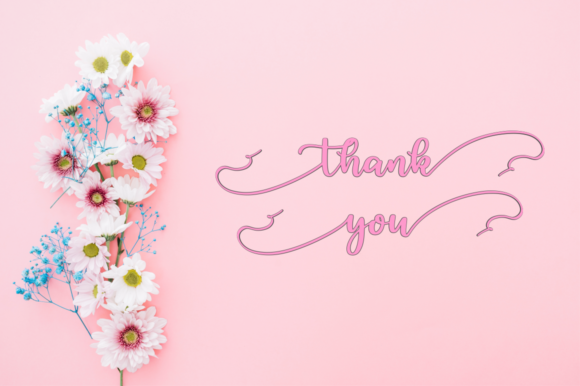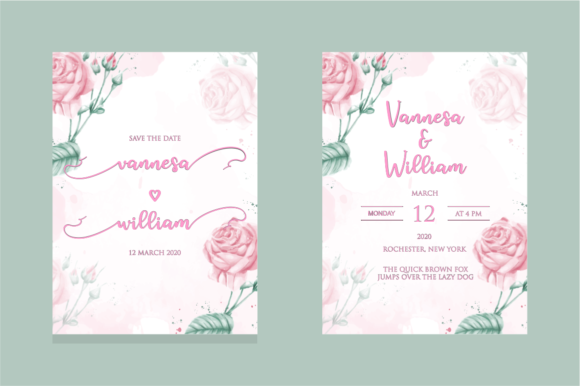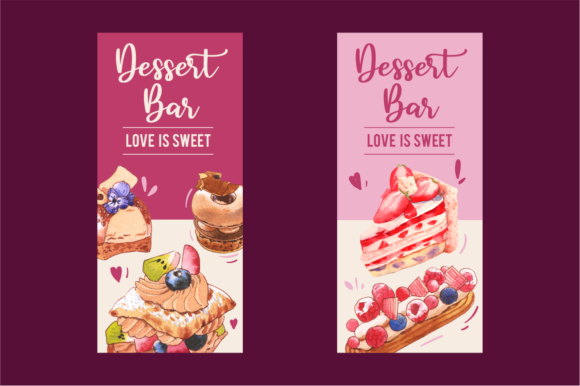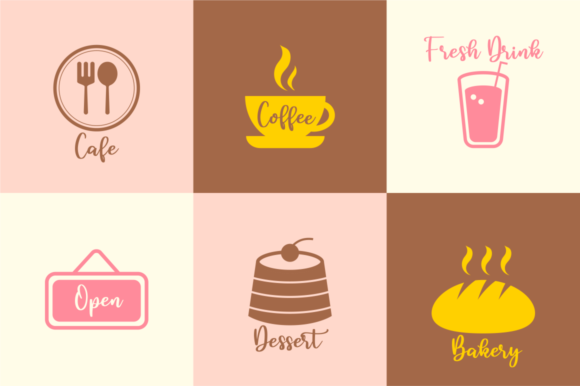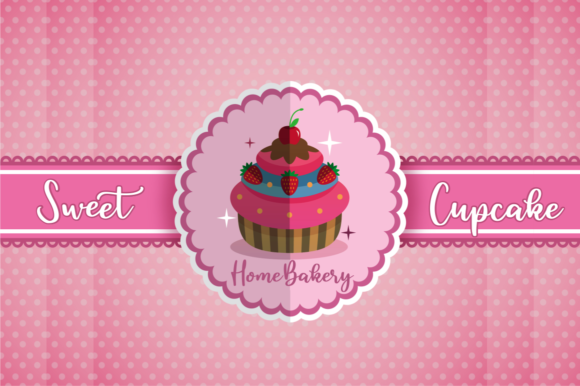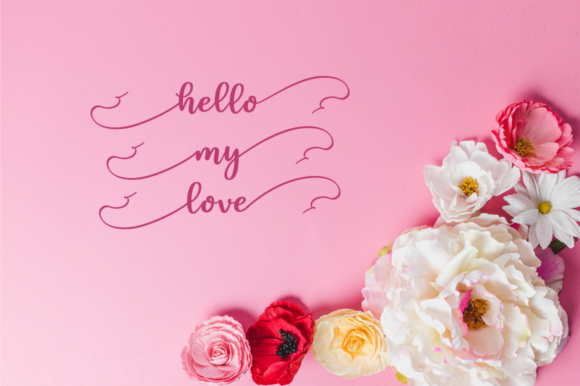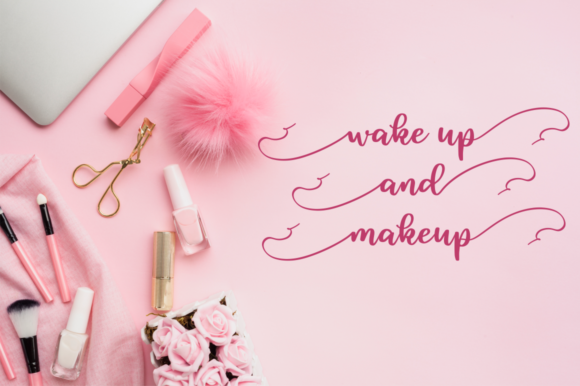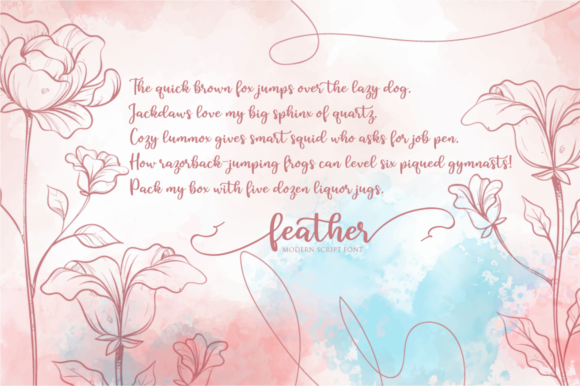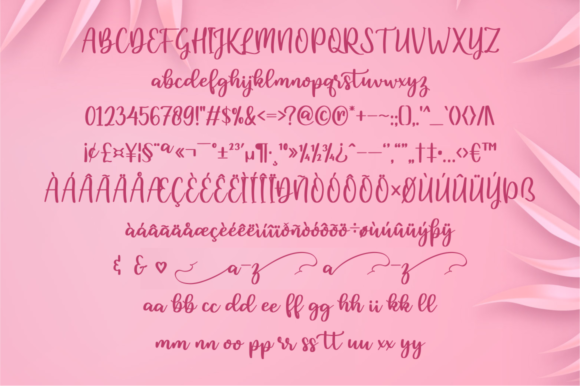
Feather Font
About Feather Font
Feather has a sweet and modern handwritten font style. This font is equipped with complete alternates and beautiful ligatures that make this script incredibly versatile.